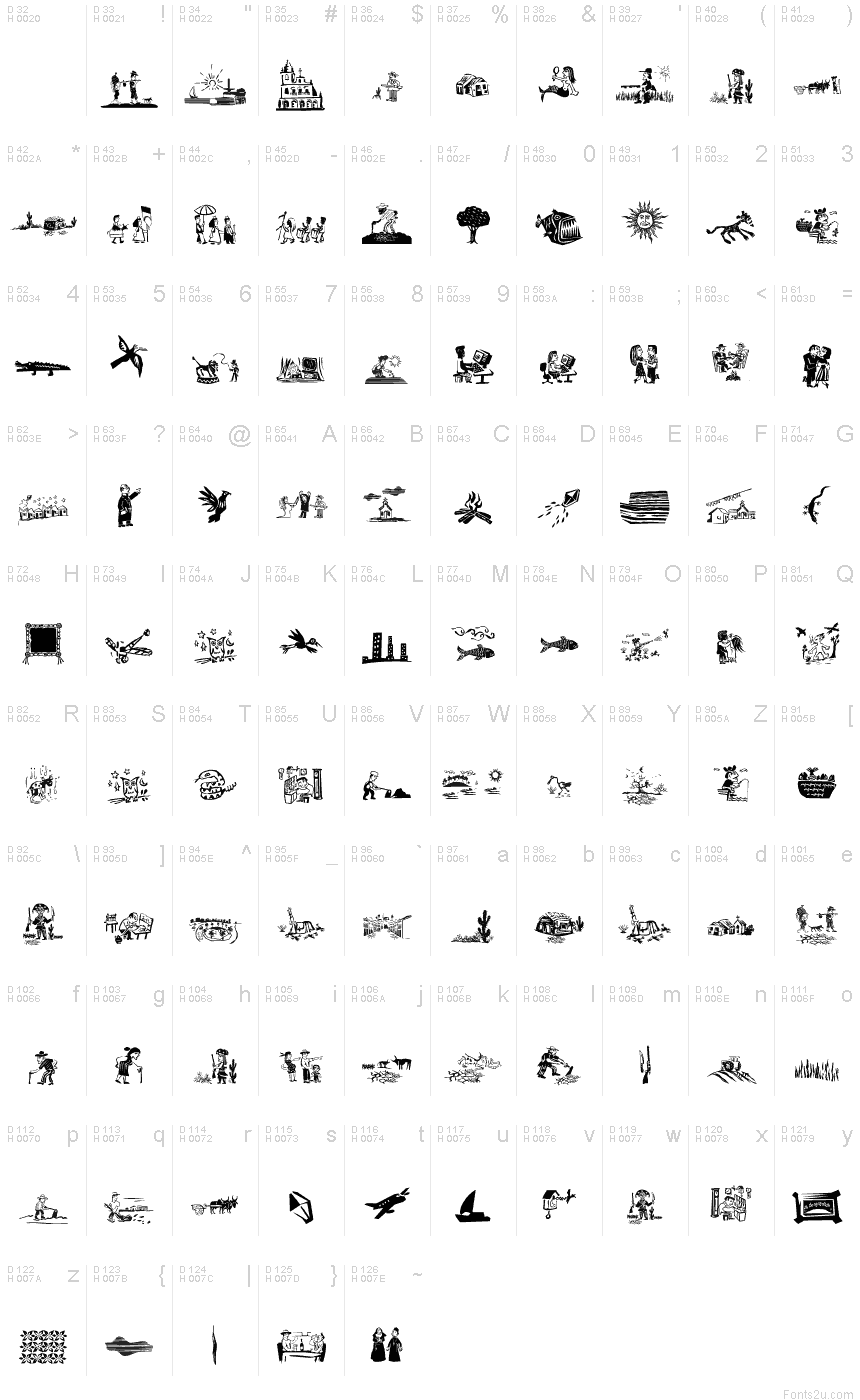
Ochent Silibrina 2 by Galdino Otten is a free cartoon dingbat font built from small, hand-drawn scenes. The loose linework depicts rural characters, animals, plants, tools, and vehicles with a wry folk-art quality. Each symbol reads like a tiny comic vignette.
Its rustic comic genre suits children's publishing, humorous posters, and event graphics centered on country life or travel, since the pictures already supply both subject and narrative detail. On packaging or merchandise, the motifs can act as spot illustrations, borders, or repeated patterns, linking the symbols to broader drawings of musicians, livestock, desert plants, and old machinery.